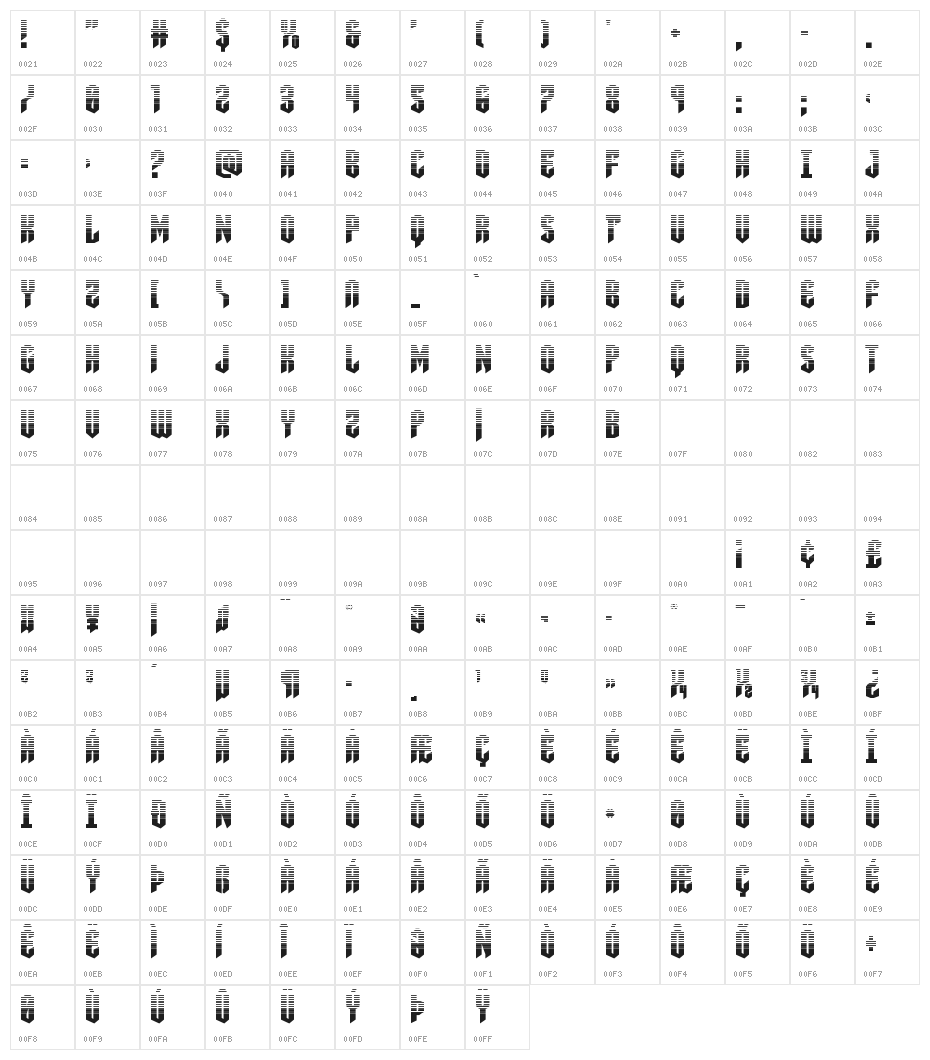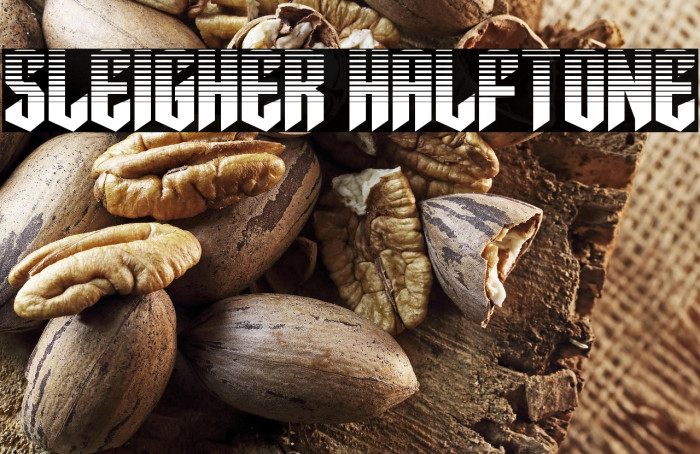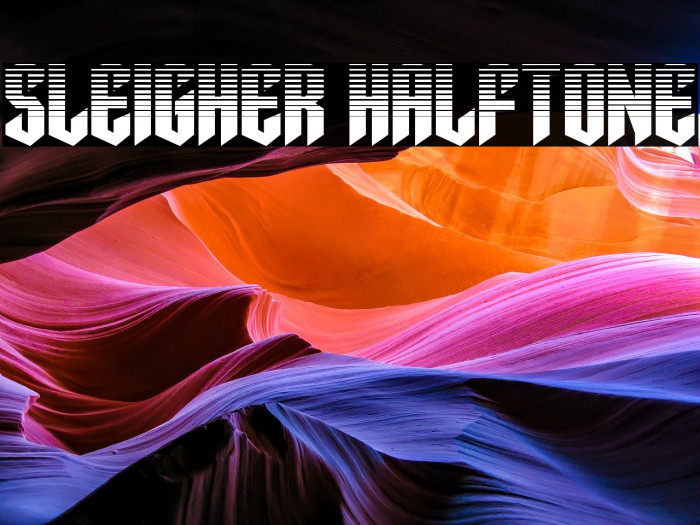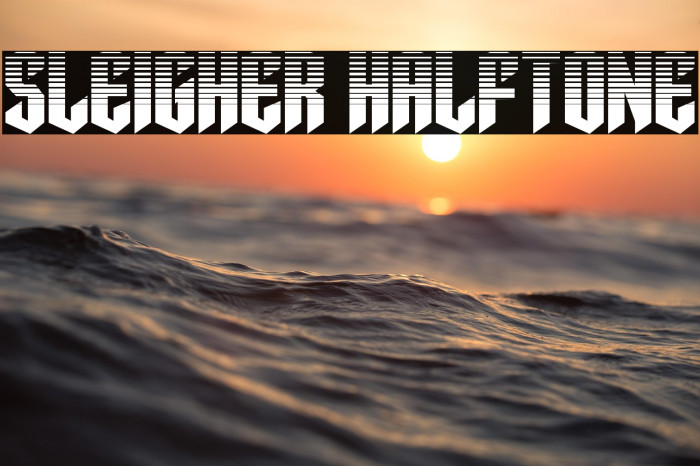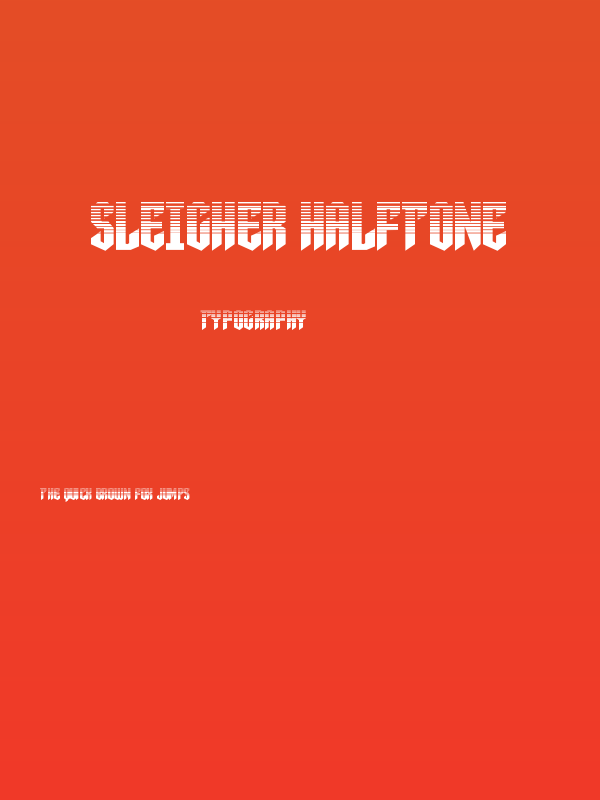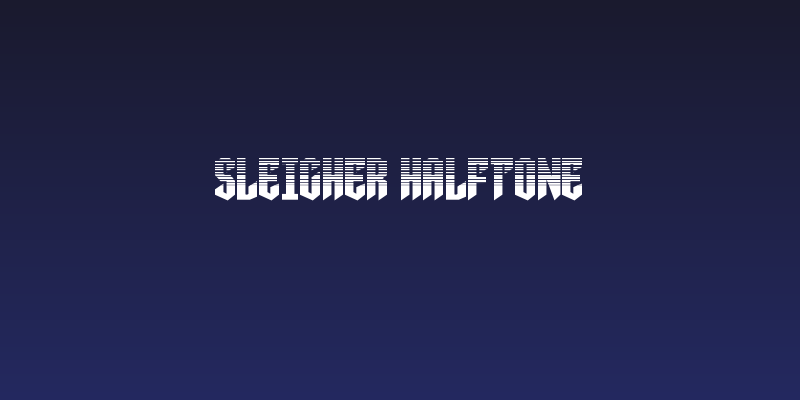
Sleigher Halftone Font
Sleigher Halftone Description
This font features a bold and striking design with a halftone effect that gives it a unique, modern appearance. The characters are constructed with a series of horizontal lines that create a gradient-like effect, transitioning from solid black at the bottom to lighter shades at the top. This creates a dynamic visual impact, making it ideal for attention-grabbing headlines or display purposes. The geometric and angular shapes of the letters add to its contemporary style, while the consistent use of the halftone pattern across all characters ensures a cohesive look. The font's design is both innovative and versatile, suitable for a variety of creative projects.
| Proposed Projects | Ideal for posters, album covers, branding, and any project requiring a modern, edgy aesthetic. |